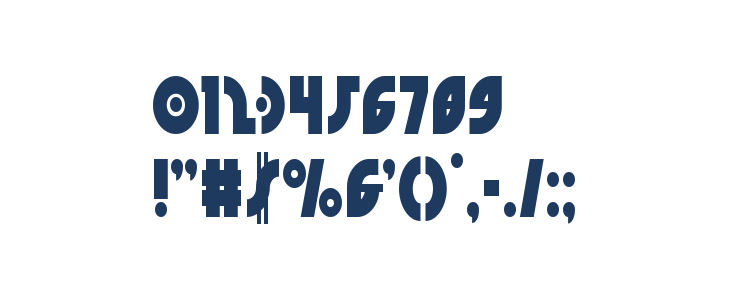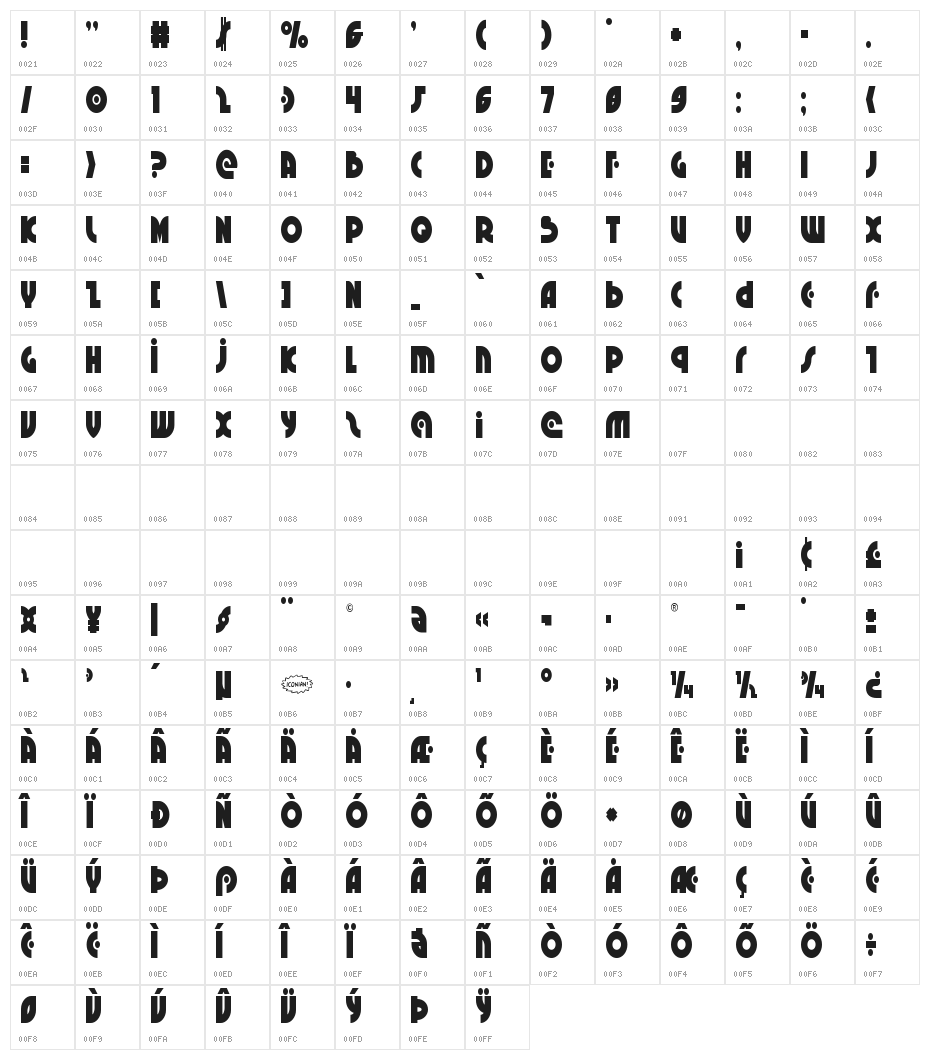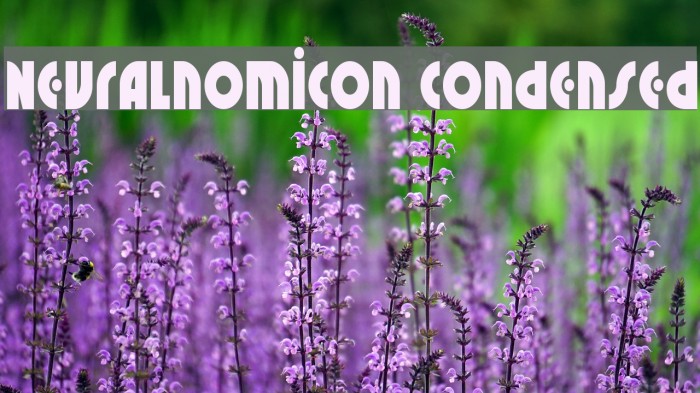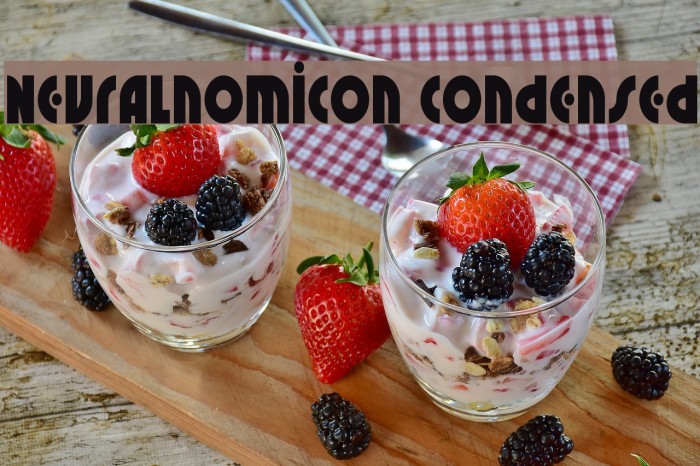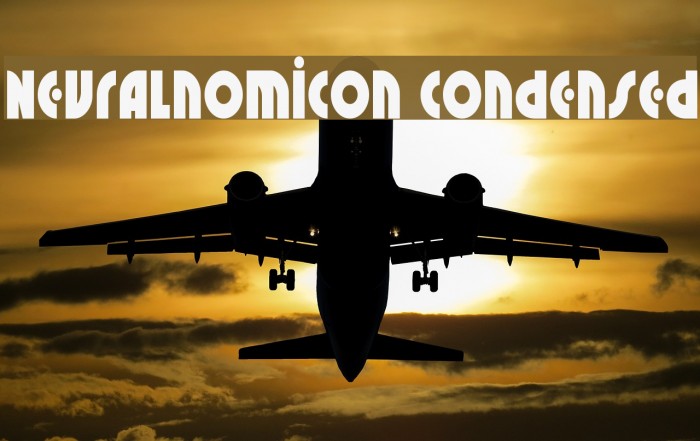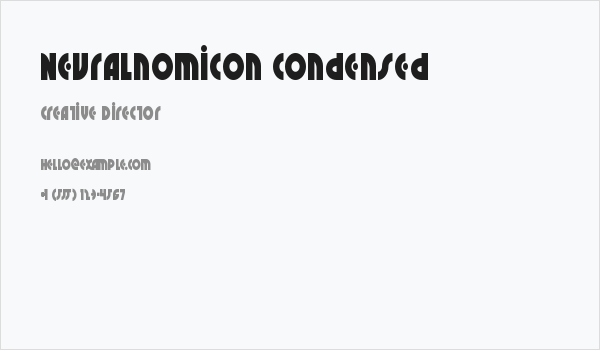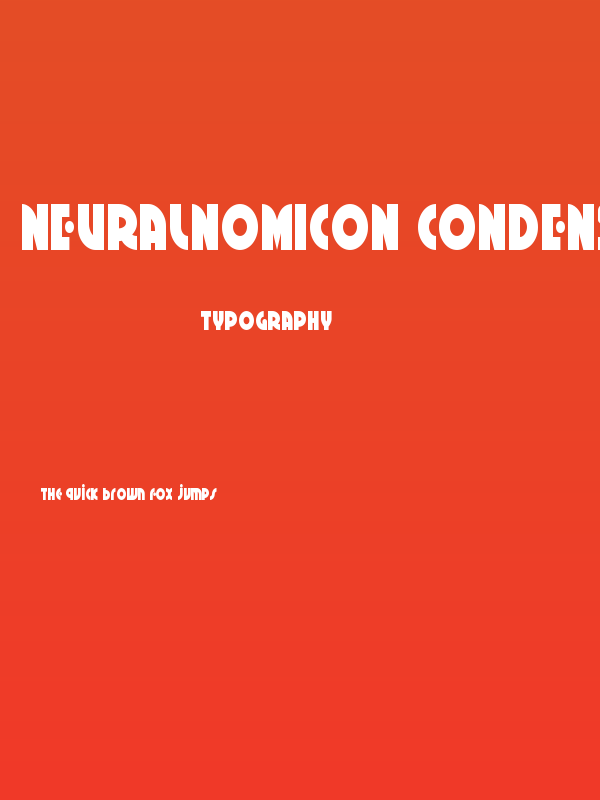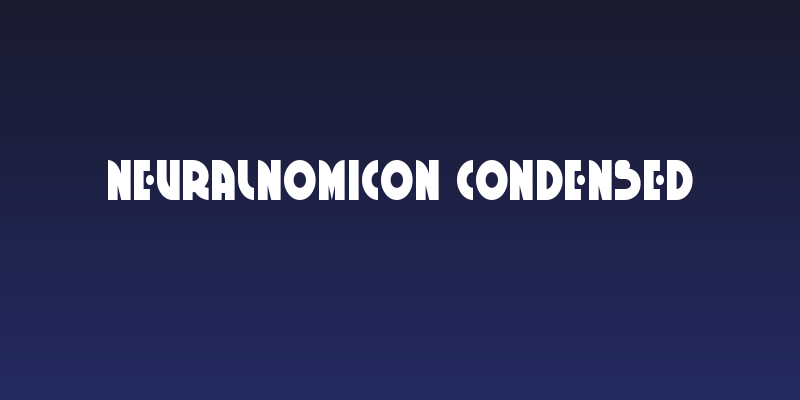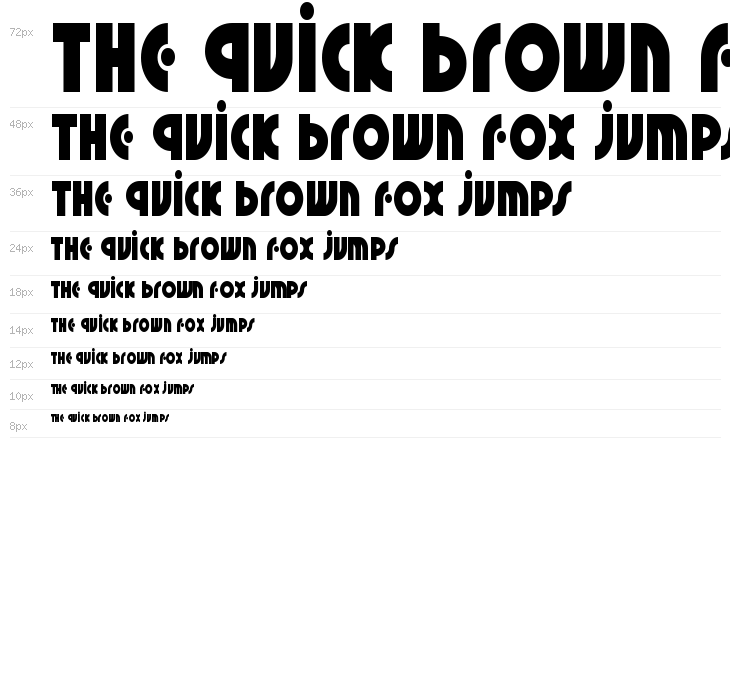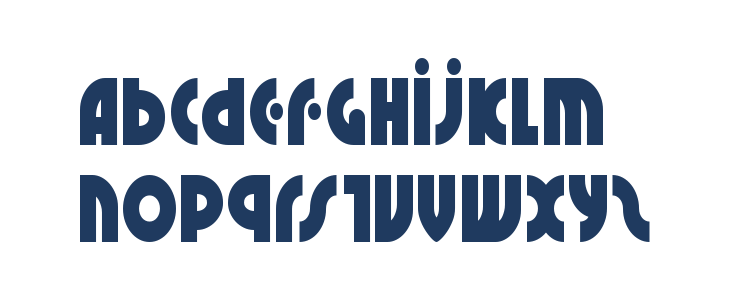
Neuralnomicon Condensed Font
Neuralnomicon Condensed Description
This font features a bold and geometric design with a futuristic aesthetic. The characters are highly stylized, incorporating circular and angular elements that create a unique visual rhythm. The uppercase and lowercase letters maintain a consistent weight, contributing to a cohesive appearance. The numerals and special characters follow the same design principles, ensuring uniformity across all glyphs. The condensed width of the font makes it suitable for space-saving applications while maintaining readability. The overall style is modern and avant-garde, making it ideal for projects that require a distinctive and eye-catching typeface.